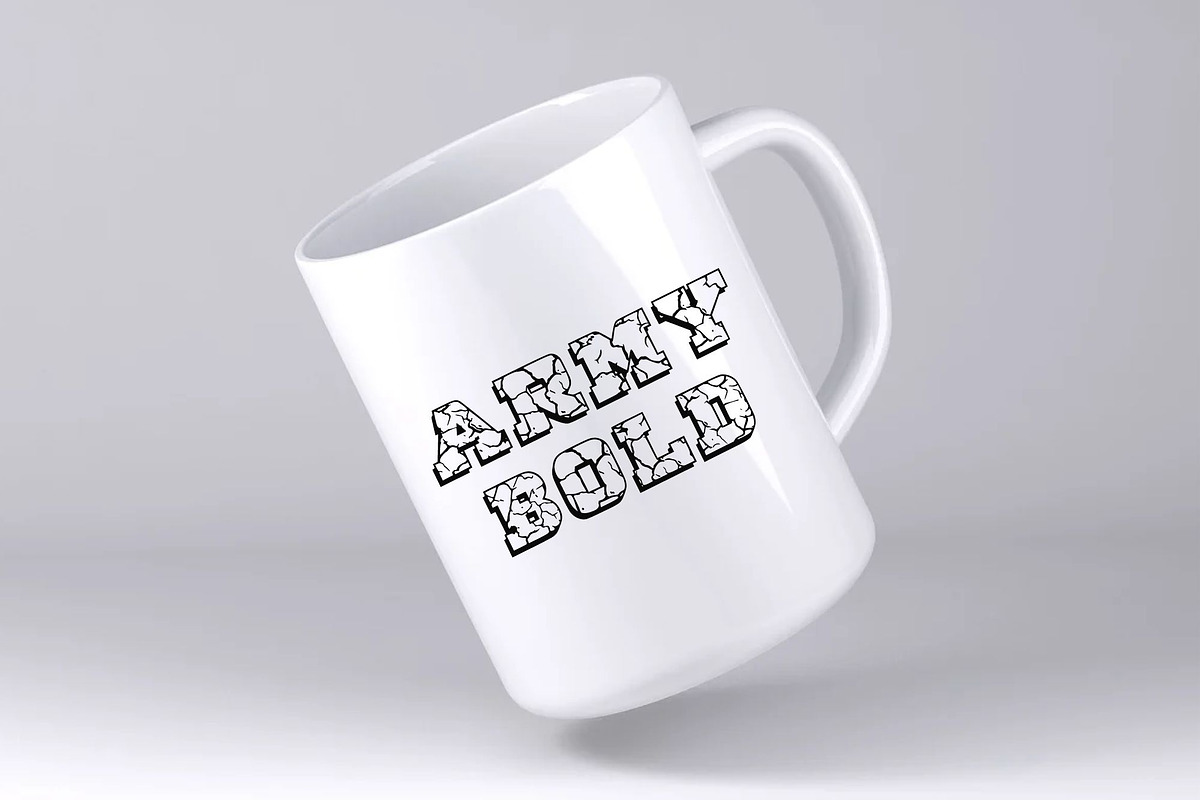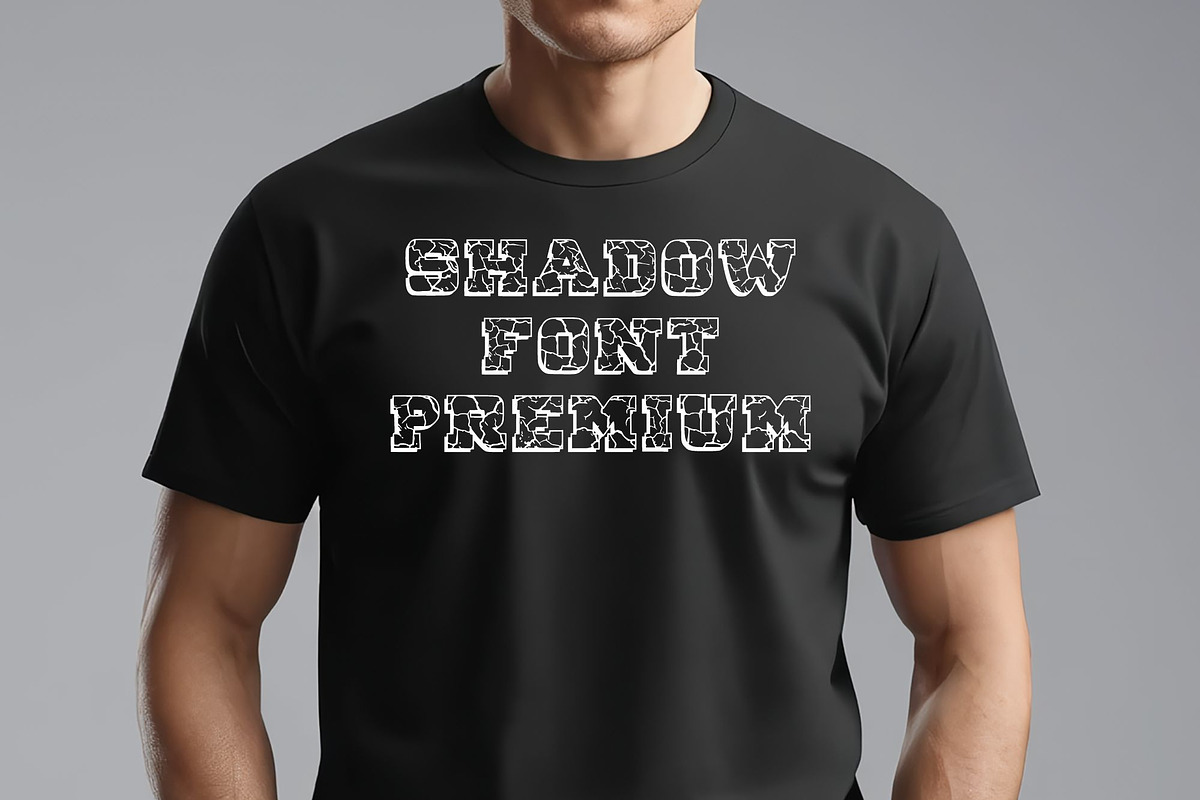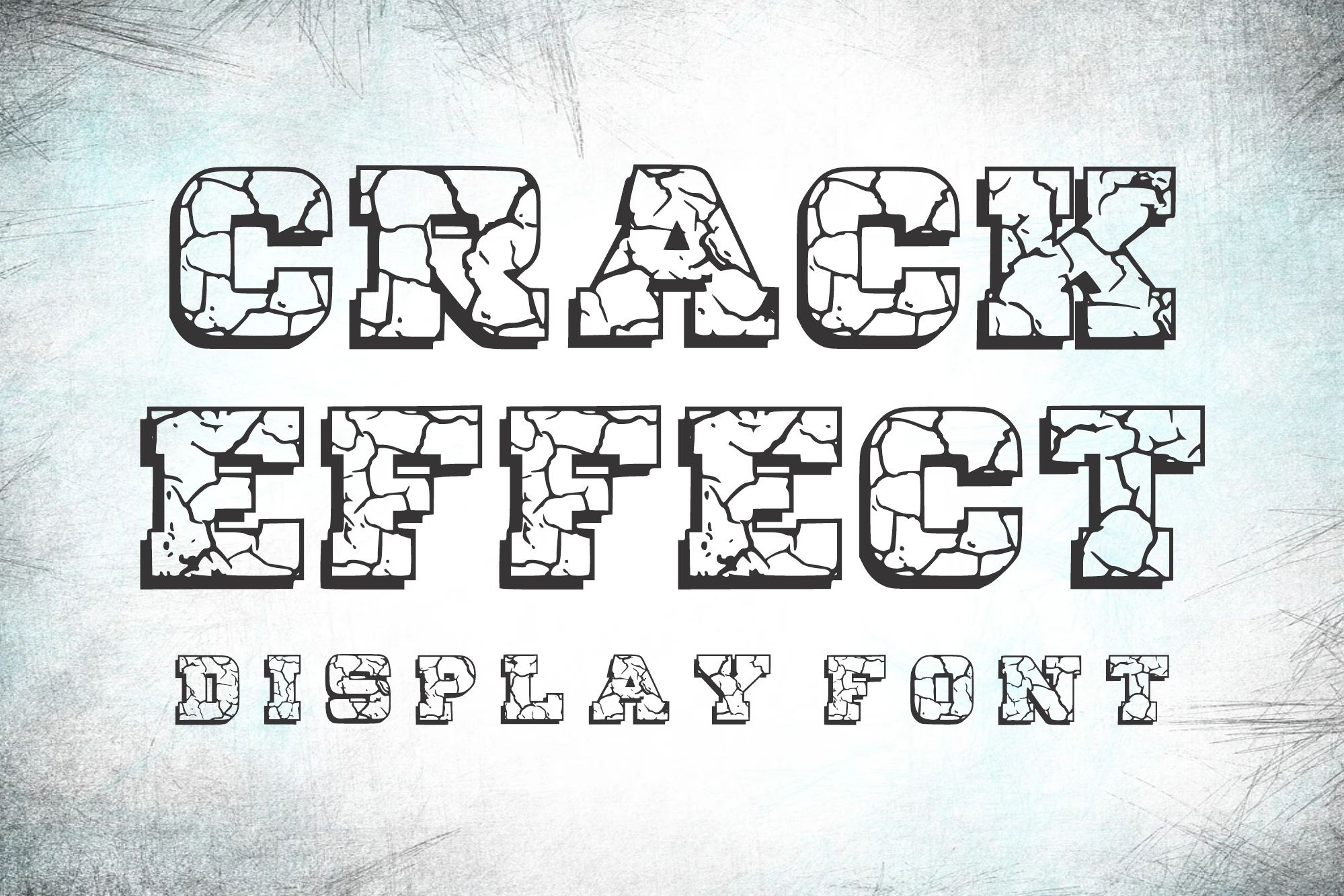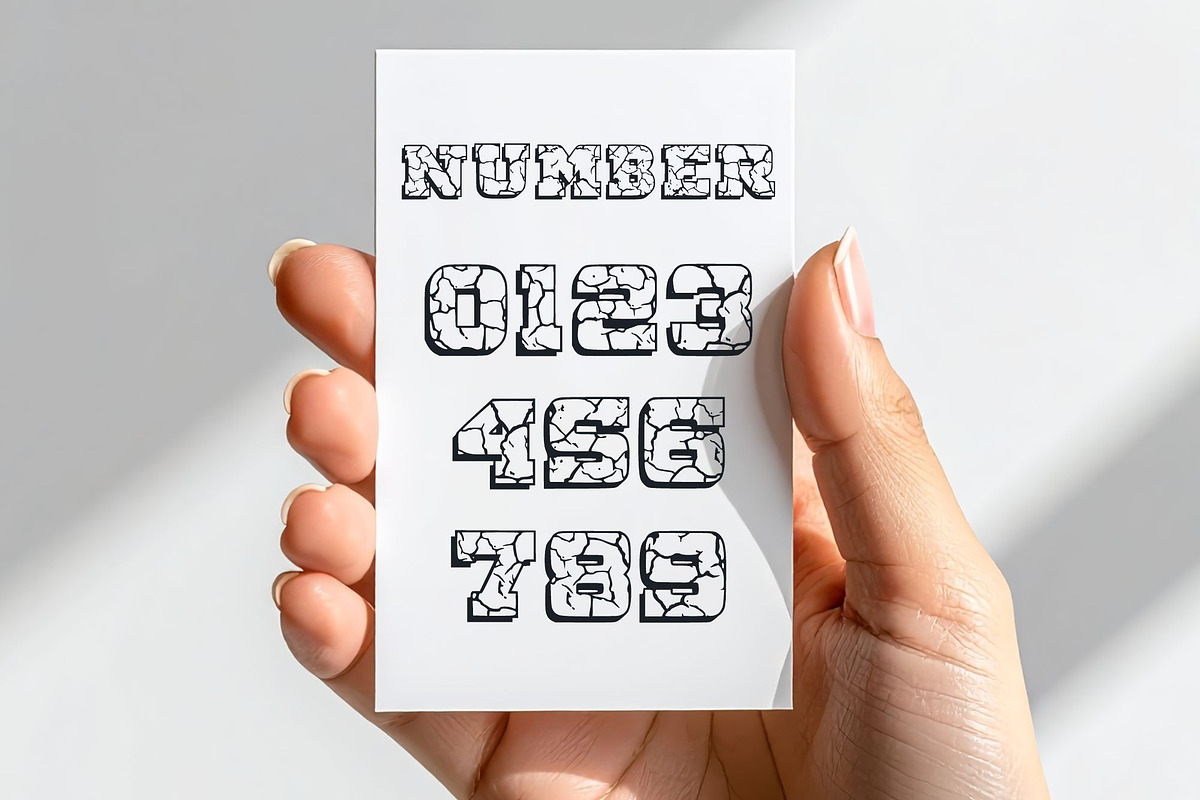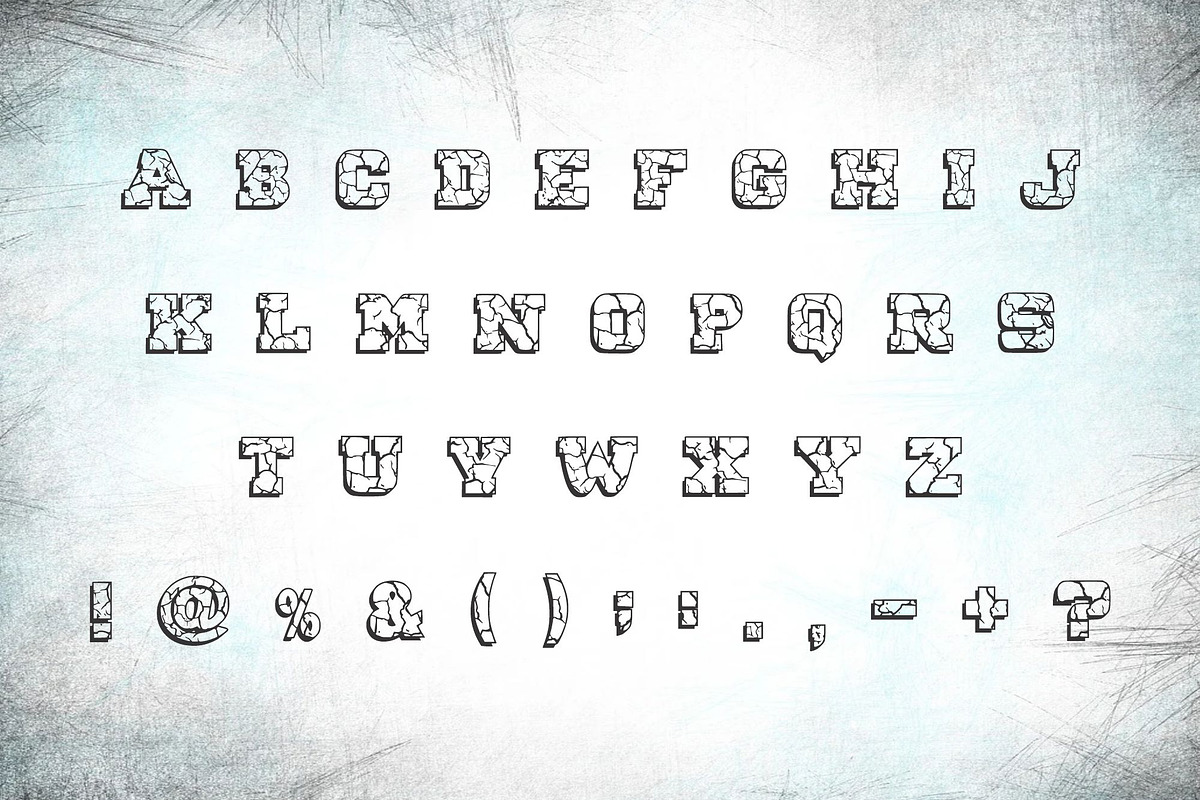
Crack Effect font
Unleash a raw, distressed power in your designs with the Crack Effect font!
The Crack Effect font delivers an unmistakable aesthetic of breakage and intensity, perfect for grabbing attention in high-impact projects.
This rugged, bold typeface features thick, blocky letterforms that are filled with an intricate, shattered texture, simulating the appearance of cracked earth, broken stone, or shattered glass. Each glyph is a standalone statement piece, providing a powerful visual metaphor for disruption, resilience, or a hardcore attitude.
The heavy outlines ensure excellent visibility even with the detailed interior, making this display typeface ideal for large-scale use. Use the Crack Effect typeface to inject an authentic, aggressive edge into your projects—from gaming titles and movie posters to rebellious apparel design. It’s the ultimate asset for designs that need to look tough, weathered, and unforgettable.